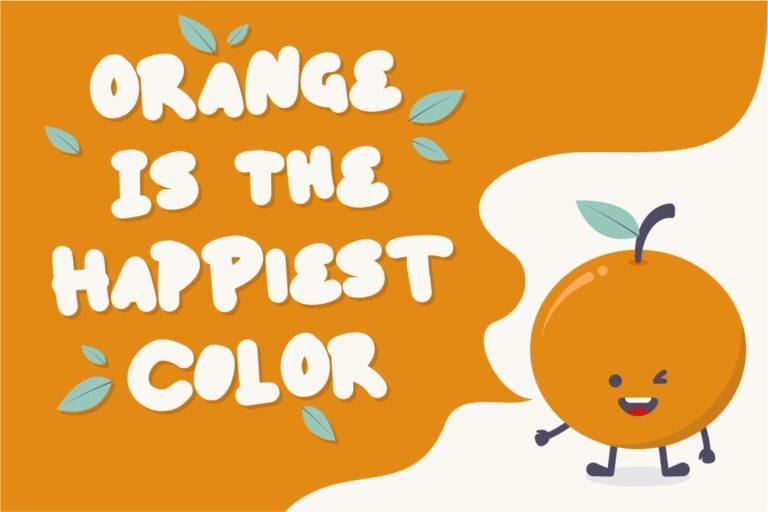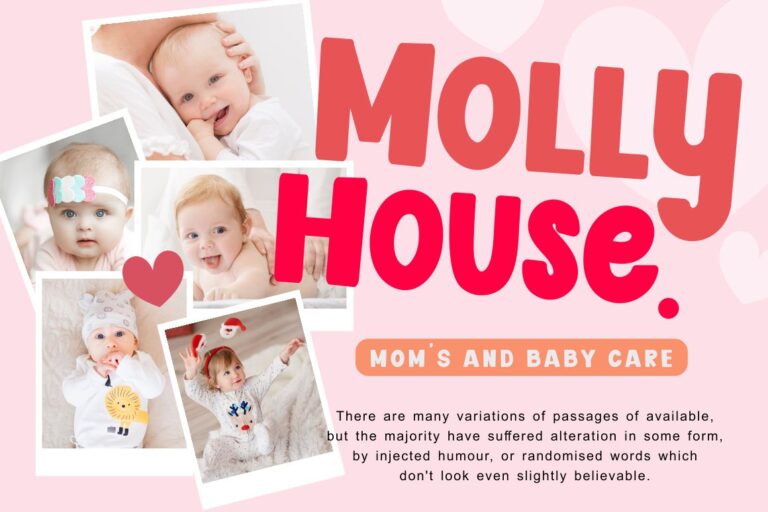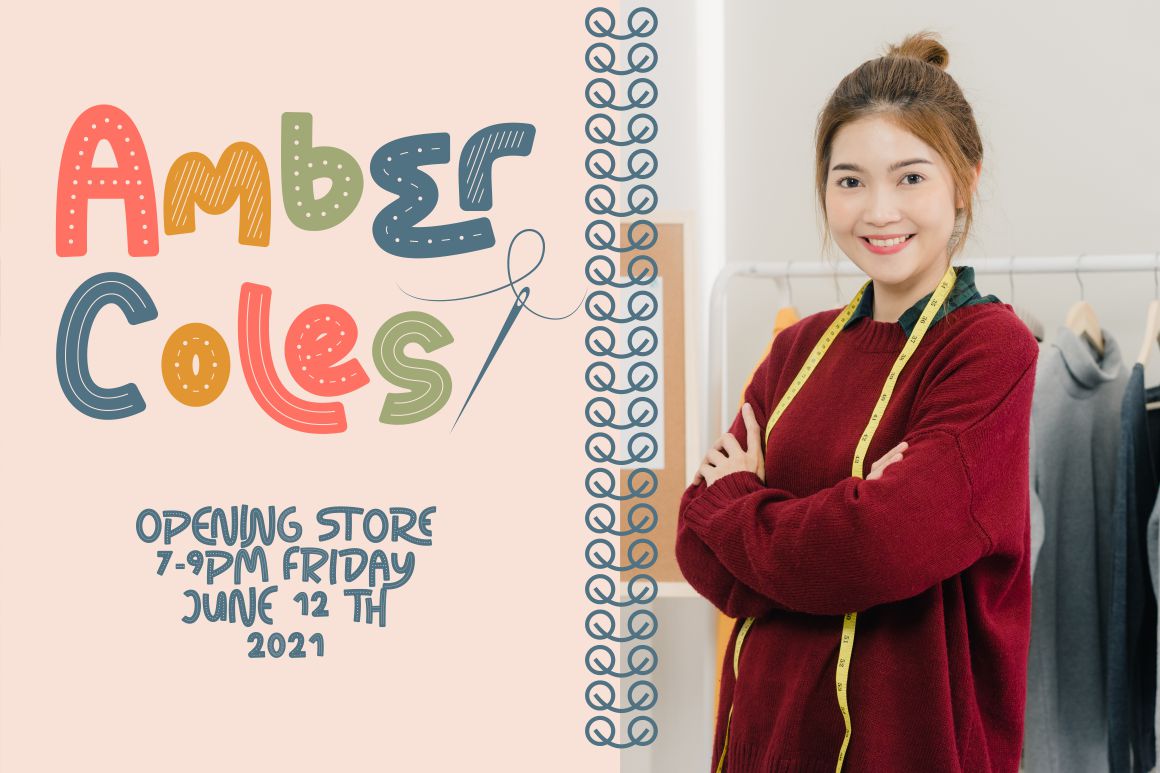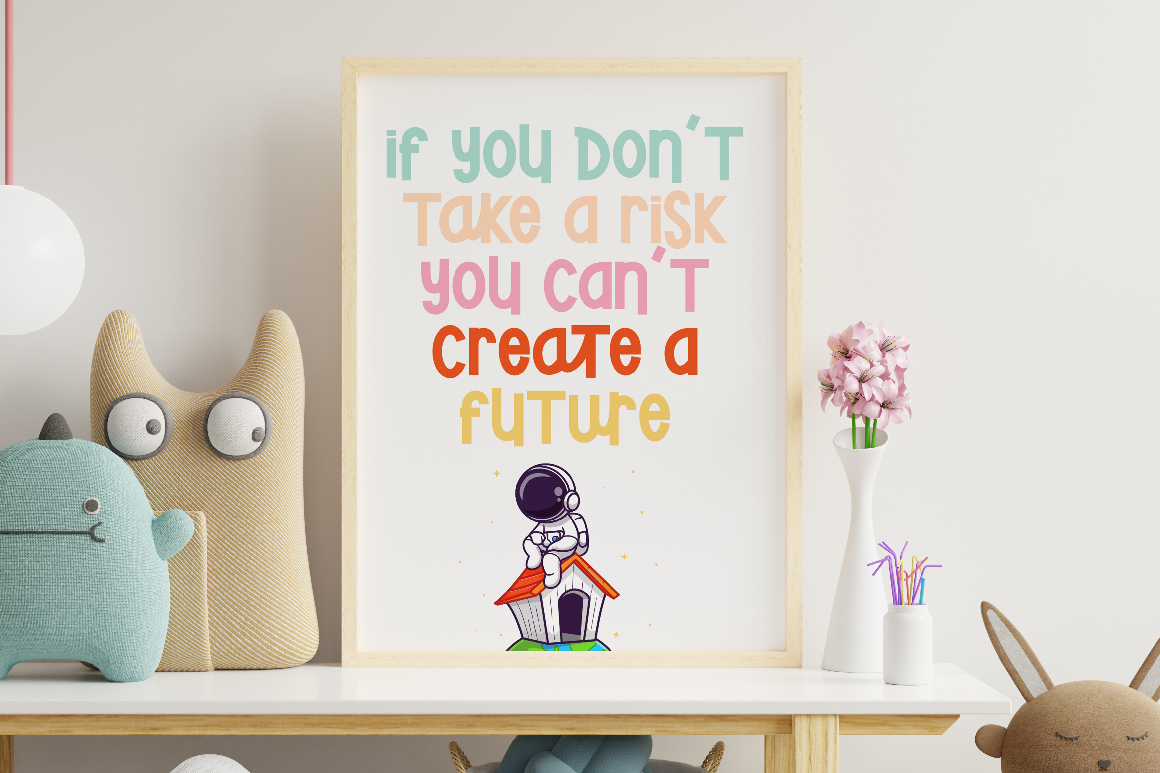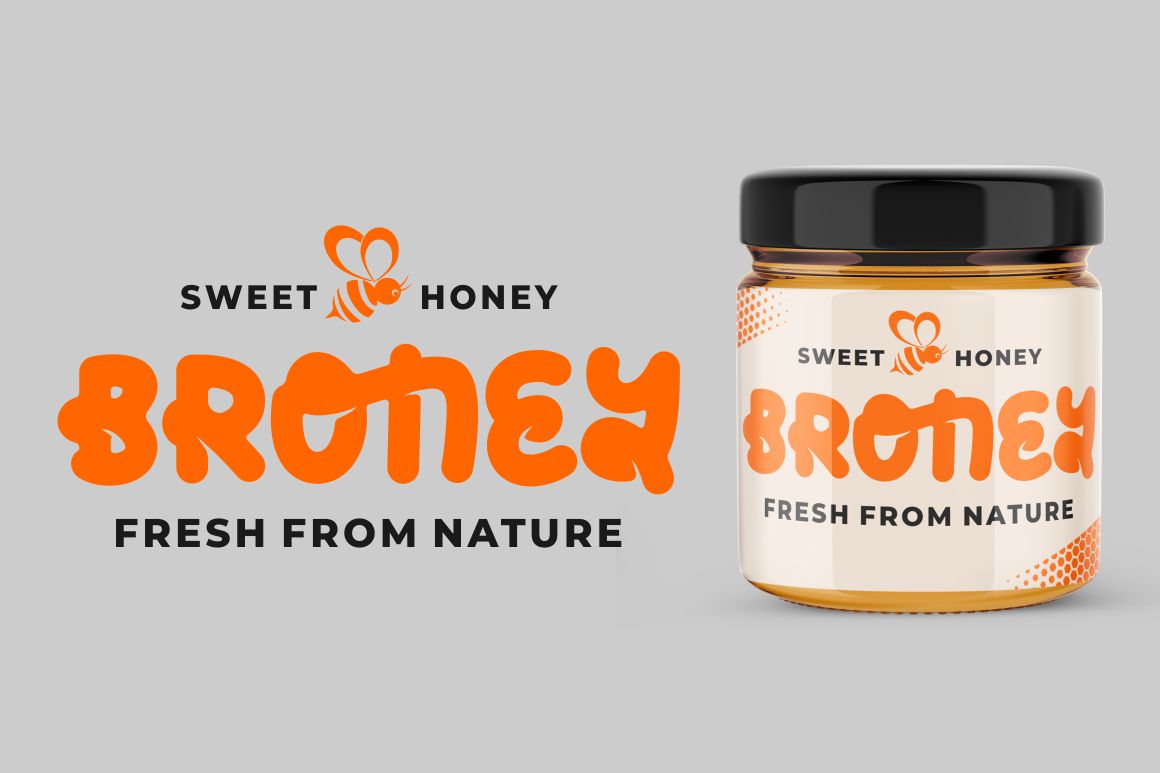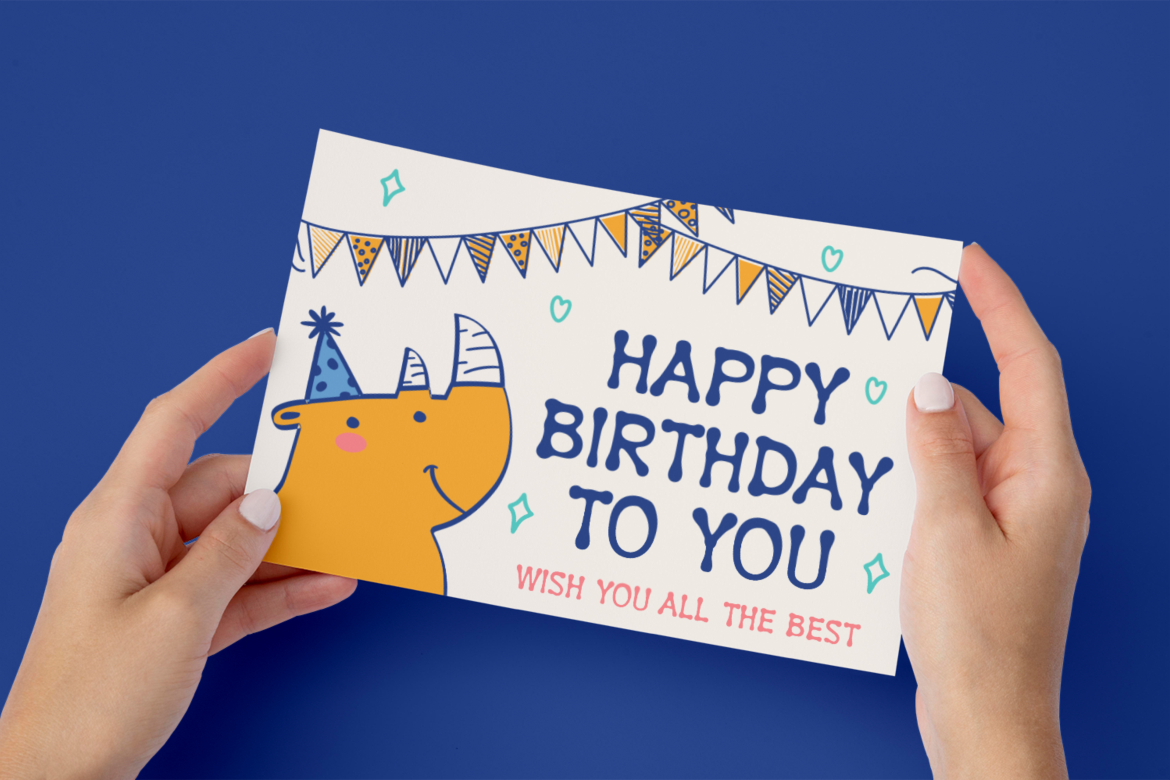
Best Cute Fonts Collection: 12 Playful Typography Gems for Branding
Typography isn’t just about letters, it can evoke emotion, personality, and even nostalgia. This cute fonts collection from PutraCetol showcases twelve playful and colorful typefaces designed to elevate branding in lifestyle, packaging, children’s apparel, and whimsical fashion campaigns. Each font blends visual charm with strategic branding potential. In the paragraphs below, you’ll find links, plus pros, cons, and use-case advice to help you pick the right one.
1. Cute Snow
Cute Snow is a soft, rounded font that channels winter nostalgia. Its thick strokes and subtle decoration make it perfect for seasonal product labels. However, its heavy shape can overwhelm small text. Use it for bold headlines or packaging only.
2. Cute Love Story
With whimsical swashes and gentle curves, Cute Love Story feels romantic and dreamy. It’s ideal for wedding invitations or greeting cards. Yet its delicate lines may get lost in low resolution or compact layouts.
3. Stick Figure Groovy Fun
This quirky font adds personality with irregular lines, perfect for playful campaigns or youth brands. But its hand-drawn charm comes with inconsistent spacing, proofing is essential for alignment in longer phrases.
4. Burges Elbow
Burges Elbow brings retro comic flair with rounded, playful letters. It’s great for kids’ products or event posters. Just note that thinner sections may blur when used at small sizes or on busy backgrounds.
5. Sweet Kulfi
Inspired by Indian treats, Sweet Kulfi features bouncy letterforms and decorative loops, ideal for confectionery branding or international snacks. It’s eye-catching but can clash with minimalist designs due to its cultural styling.
6. Tailor Craft
Tailor Craft looks handmade and friendly, with slightly uneven strokes. It suits home goods, craft packaging, and DIY brands. For premium positioning, its informal charm may feel too casual.
7. The Good Panther
With rounded edges and bold simplicity, The Good Panther works well in fashionable kidwear or lifestyle graphics. It’s gentle and readable, though it lacks decorative flair for niche or luxury aesthetics.
8. Fun Kids Playful
Bright and energetic, this font jumps off the page with exaggerated forms. Excellent for educational toys, but too exuberant for corporate settings or adult audiences.
9. Honey Berry
Honey Berry delivers trendy charm with cute berry-shaped terminals. It shines in branding for skincare or artisanal goods. Due to its stylized features, it may not match bold, modern design systems.
10. Silky Candy
Soft and fluid, Silky Candy feels like icing or gelato, ideal for sweets or summer campaigns. Yet its flowing curves can reduce legibility in longer blocks of text.
11. Ballsye
Ballsye is bold and bubbly, with oversized circular forms. It works well for bold signage or poster designs. The whimsical shapes, however, may feel juvenile in refined or minimalist projects.
12. Doodle Giggle
With freehand sketchiness and cheerful loops, Doodle Giggle exudes childlike creativity. Ideal for classroom materials or arts and crafts branding. It may feel too eccentric for polished, high-end goods.
Why a Cute Fonts Collection Matters
The right typography can shape brand perception. This cute fonts collection proves that playful type can also feel professional when chosen thoughtfully. For packaging, a sweet-curved font can communicate flavor and delight. In logo design, rounded letterforms convey approachability. That emotional connection is especially important in fields like children’s fashion, sweets, and lifestyle products.
Choosing the Right Cute Font
Match the font to your brand’s tone:
• Whimsical + bold: go with Ballsye, Fun Kids, or Stick Figure.
• Romantic + soft: Cute Love Story or Silky Candy shine.
• Nostalgic + cultural: Sweet Kulfi and Cute Snow add warmth.
• Handmade + artisanal: Tailor Craft, Doodle Giggle, or Honey Berry fit well.
Pair high-impact fonts with simpler serifs or sans-serifs for readability. Use decorative fonts sparingly in headers or logos. Check legibility at different sizes and on various media, digital, print, packaging, textiles.
When to Use Playful Typography
• Kids products & packaging – bold, rounded fonts communicate safety and fun.
• Promotional campaigns – playful, eye-catching fonts like Burges Elbow or Ballsye work well as hero type.
• Social media graphics – text with visual flair stands out when paired with pastel filters or illustrated overlays.
• Seasonal or event branding – Cute Snow or Cute Love Story evoke a thematic vibe instantly.